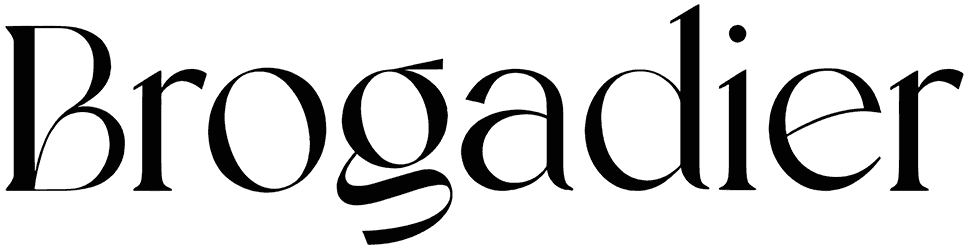
Brogadier Font
Take this rare opportunity to elevate your lettering better than ever with a nice classic font from Resource Boy’s collection named Brogadier. It takes care of everything for you to charm the audience with its mesmerizing combination of simplicity and beauty.
Sometimes, all you need to rock your signs and logos for malls, magazines, or art galleries is an elegant font. Lucky for you, Brogadier is here to provide your words with all the elegance they need.